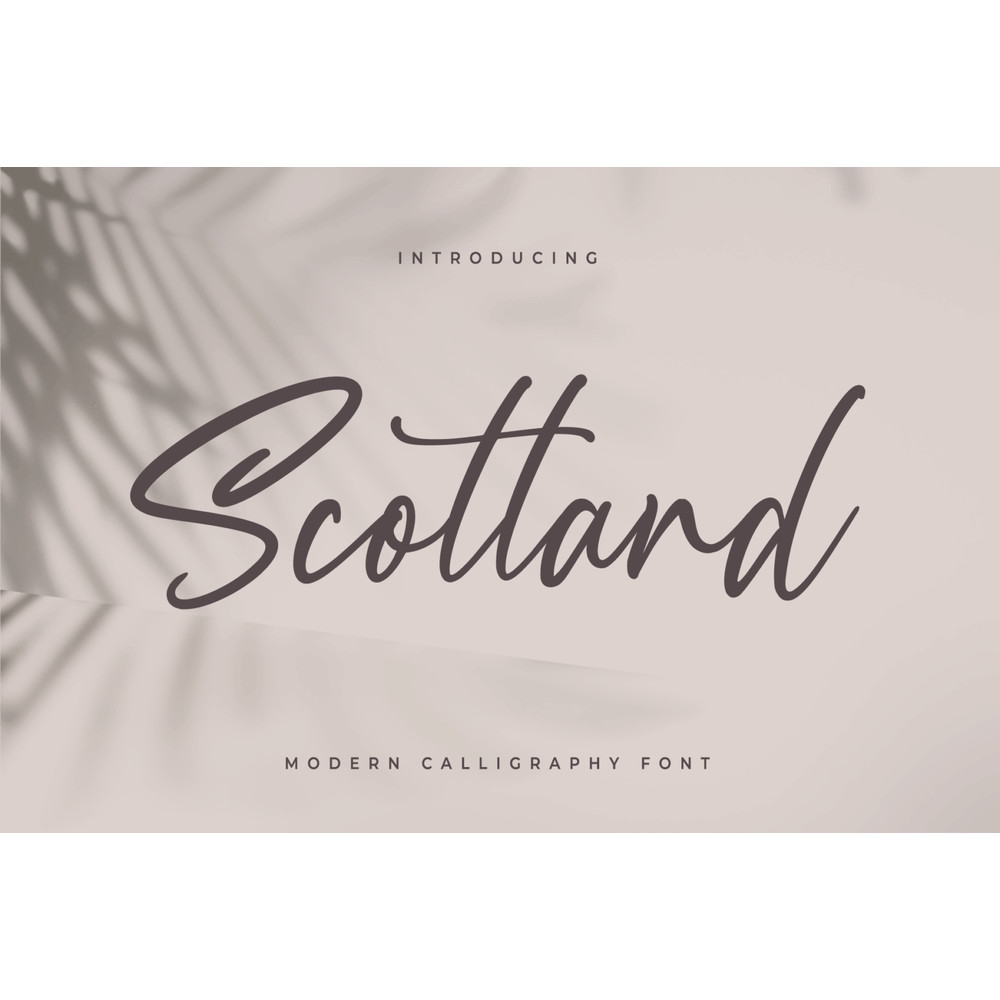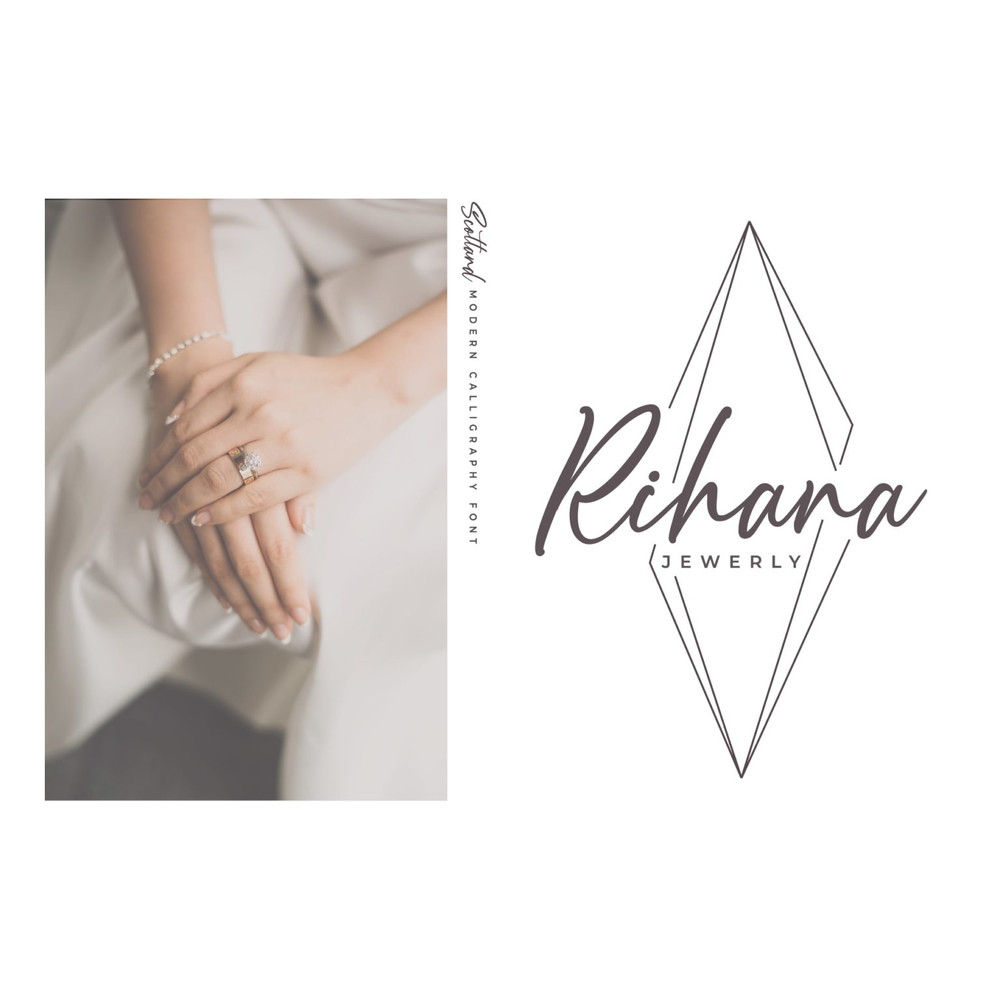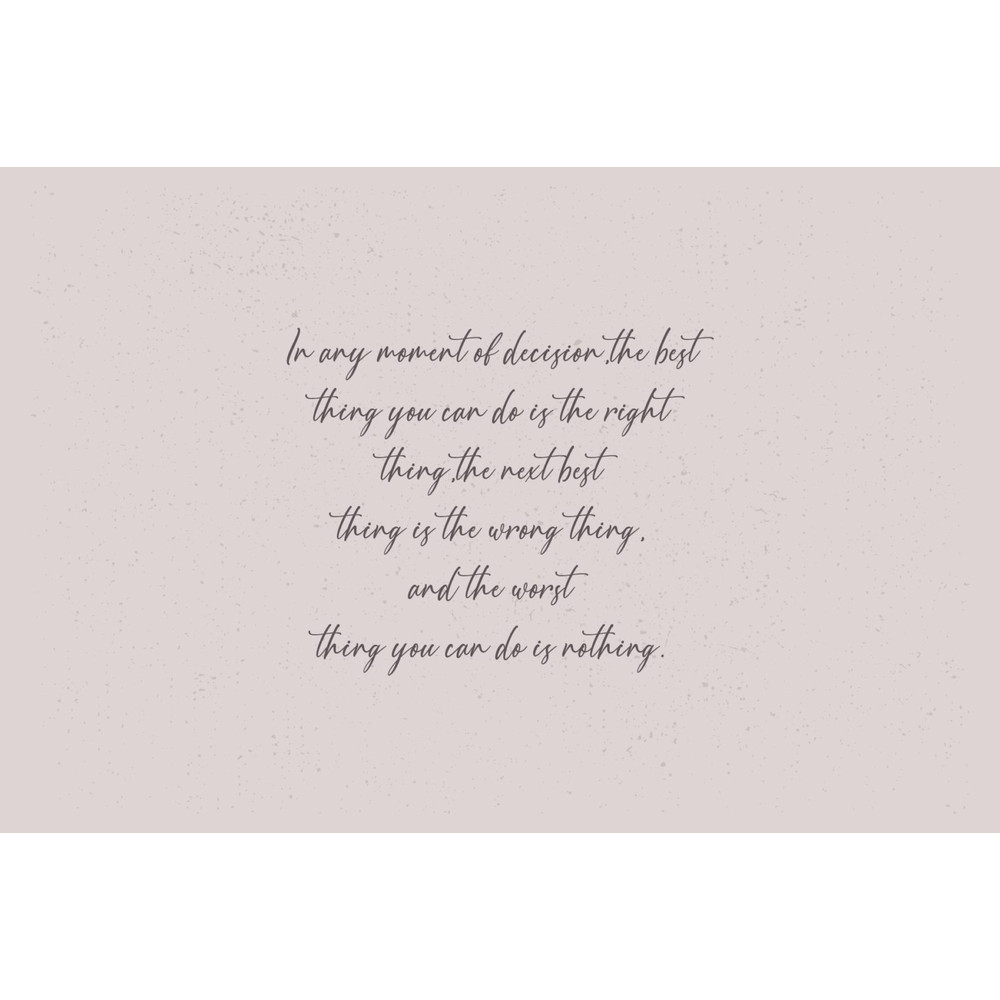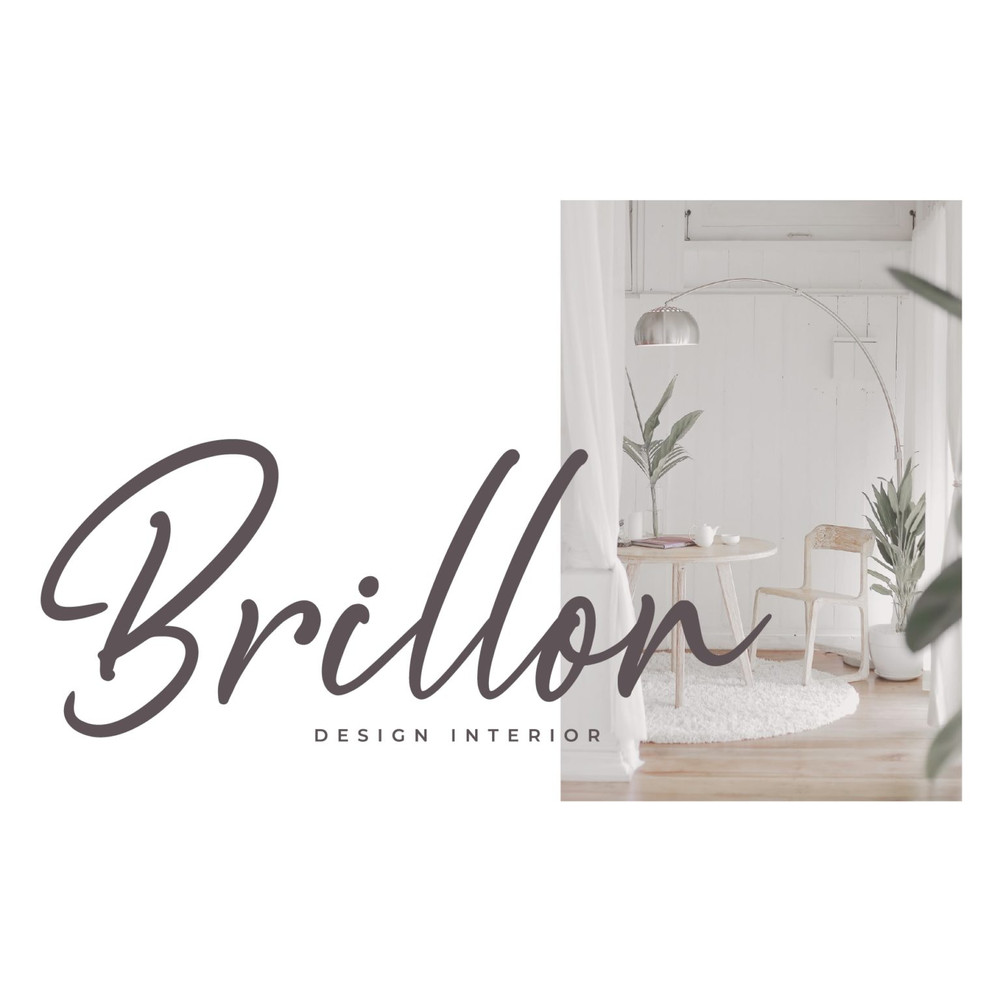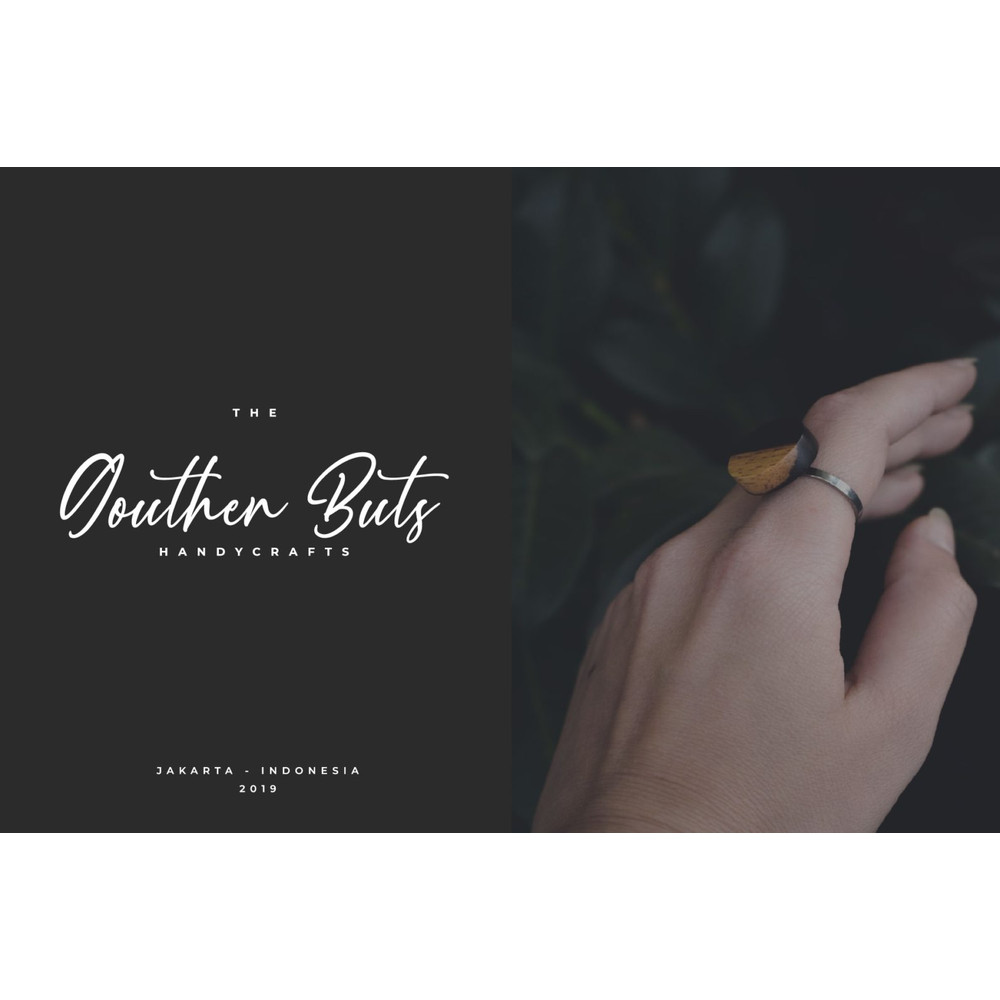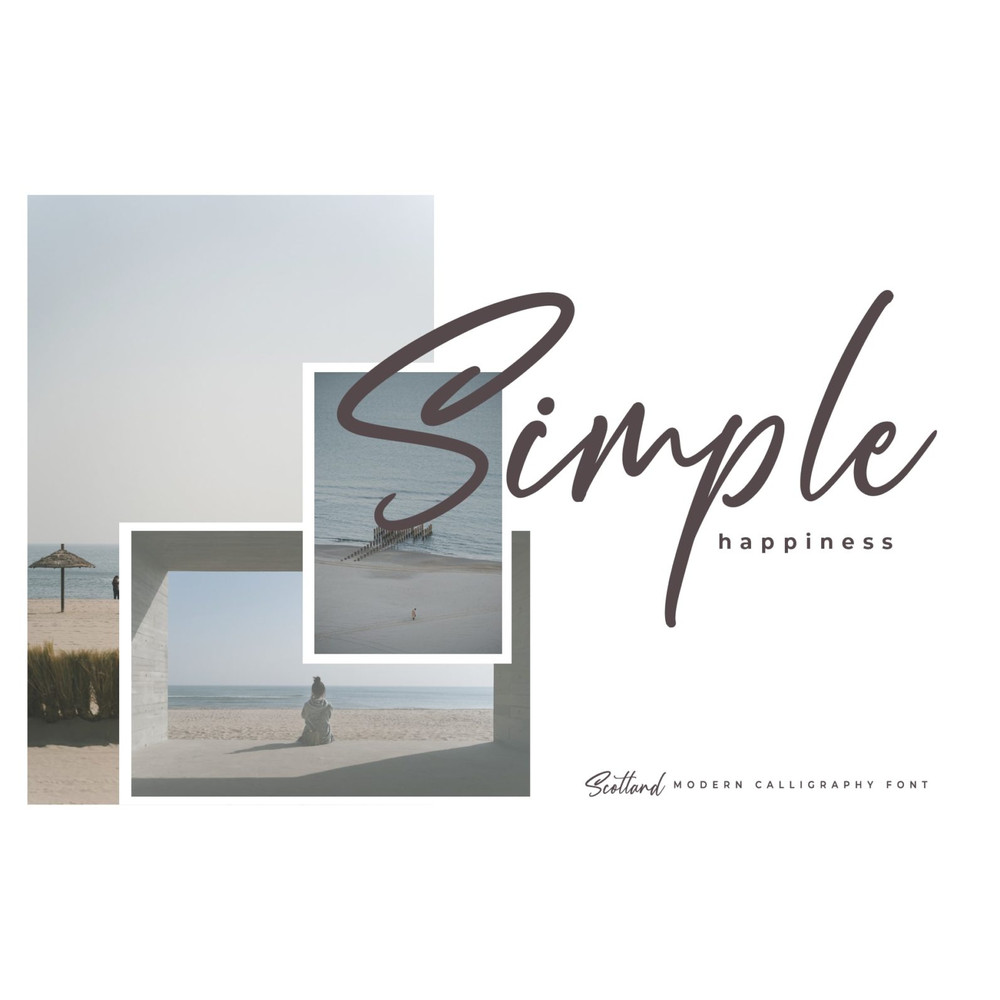
Scotland – Modern Calligraphy Trending Fonts - Digital Font
Scotland is special calligraphy font. It is perfect for branding, wedding invites and cards, and maybe for red wine label. this font comes with full set of uppercase and lowercase letters, multilingual symbols, numerals, punctuation.